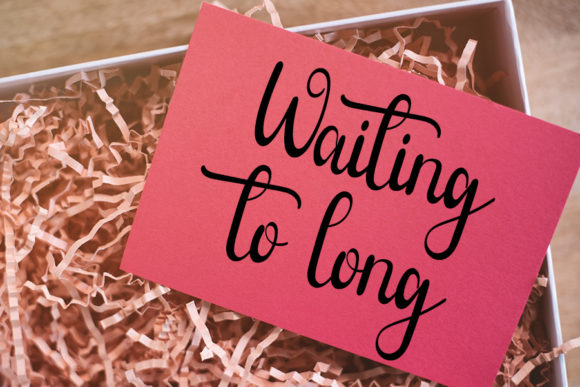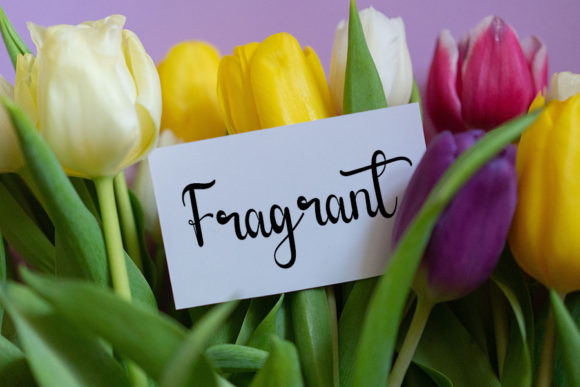
About Sometimes Font
Introducing Sometimes, a delightful handwritten font meticulously designed to make your work stand out with its elegant and curvy lines. This charming typeface is an ideal choice for various creative projects, whether you’re working on product packaging, branding endeavors, magazine covers, social media content, weddings, or simply expressing words above a background.
The allure of Sometimes lies in its handwritten charm, adding a delightful blend of elegance and personality to your designs. The curvy lines of this font bring a touch of sophistication, creating a visual experience that is both inviting and stylish. Whether you’re aiming for a distinctive brand identity or infusing romance into wedding materials, Sometimes rises to the occasion.
Imagine Sometimes enhancing product packaging, creating a memorable and distinctive presence on shelves. Envision it gracing the covers of magazines, captivating attention with its handwritten flair. This font becomes a versatile tool in your creative toolkit, seamlessly adapting to diverse design contexts.
On social media platforms, Sometimes adds a touch of refinement to your posts, creating an inviting visual presence. In weddings, where love and beauty take center stage, Sometimes becomes an ideal companion, elevating invitations, signage, and more.
In essence, Sometimes is more than just a font; it’s a creative companion that allows you to express words with elegance and charm. Its versatility spans a range of projects, where each curve and line contributes to your artistic narrative. Embrace the beauty and sophistication of Sometimes as you elevate your designs, letting your words gracefully express themselves above the chosen background.